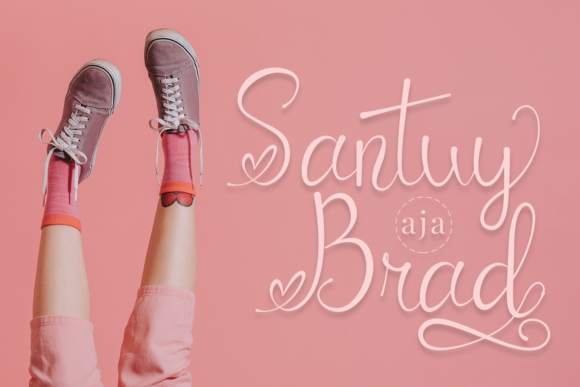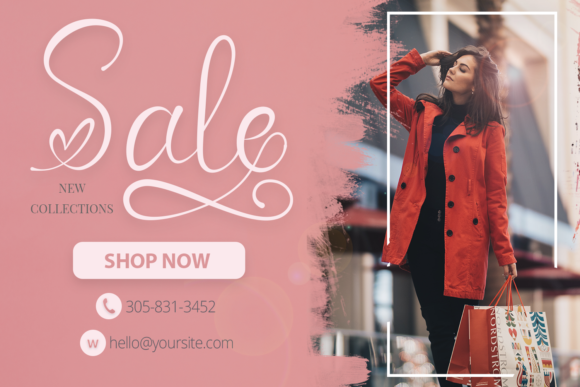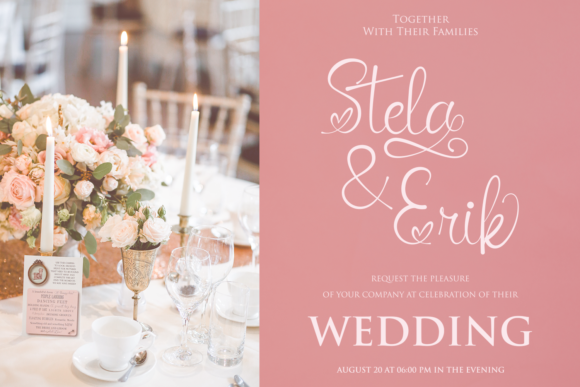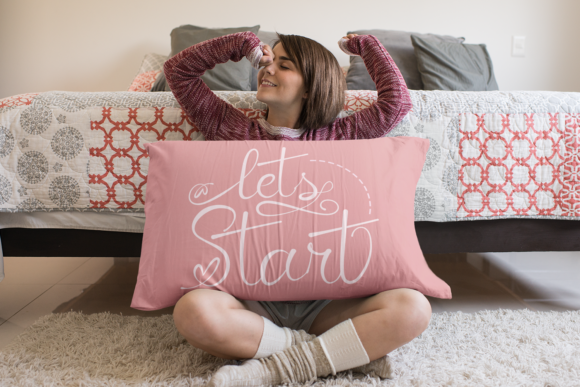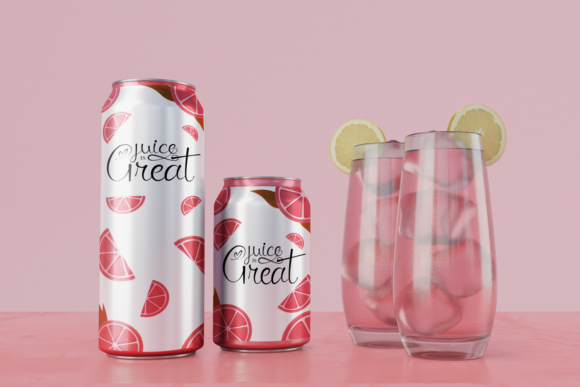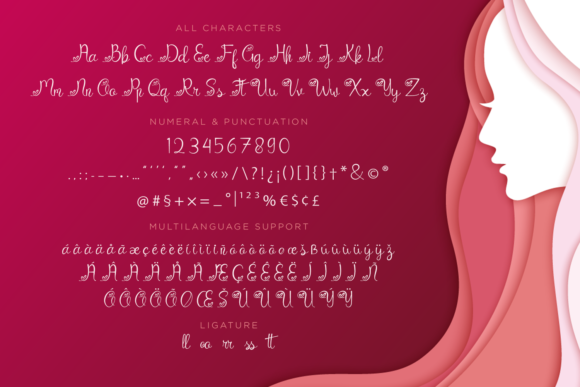
Introduction to Catrina Script Font
Catrina Script is a lovely font featuring flowing curves.
It will add a romantic touch to any crafting project .
Key Features of Catrina Script Font